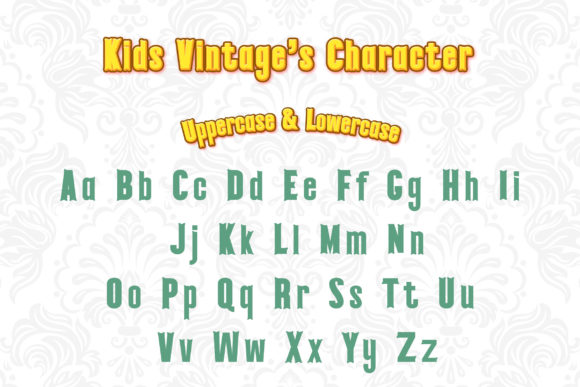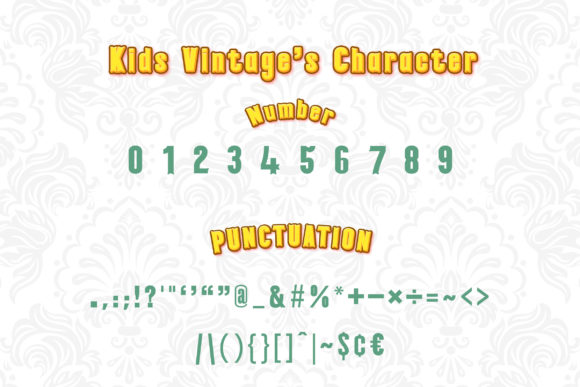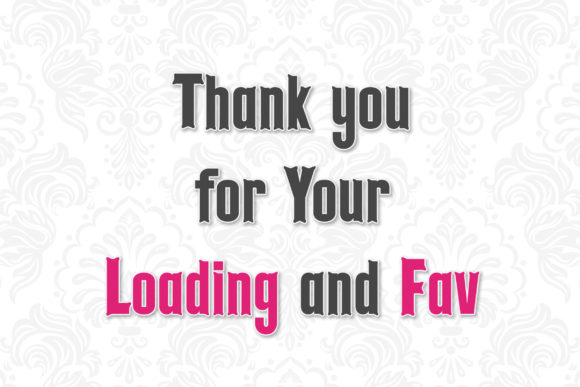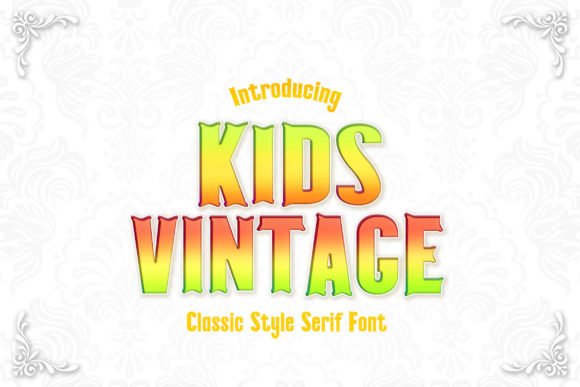
Introduction to Kids Vintage Font
Kids Vintage is a tall and thick lettered serif font.
Get creative with its authentic style and use it to create fun designs .